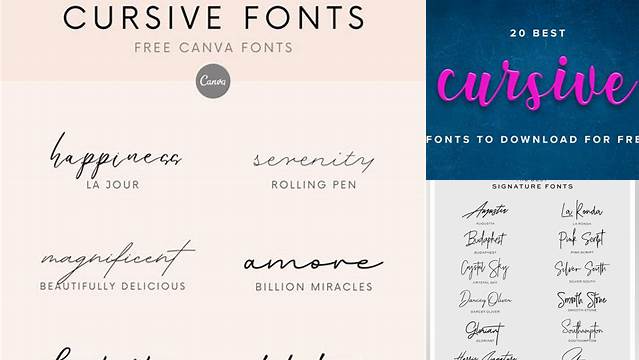
Finding the perfect beautiful cursive fonts for your projects can be a game-changer. Whether you're designing invitations, crafting logos, or just want to add a touch of elegance to your documents, the right font can make all the difference. In this article, we'll explore a variety of stunning cursive fonts available for free download, offering you a wide range of options to suit your creative needs. So, let's dive in and discover some amazing typefaces that will elevate your designs!
Cursive Fonts for Invitations
When it comes to invitations, beautiful cursive fonts can add a touch of sophistication and charm. Think about it, guys – you want your invitations to stand out, right? The right cursive font can convey a sense of elegance, warmth, and personalization that other fonts simply can't match. Here are some factors to consider when choosing a cursive font for invitations. Legibility is key; even the most beautiful font won't work if your guests can't read it. Look for fonts with clear, well-defined characters that are easy on the eyes. The font should also complement the overall style and theme of your event. For a formal wedding, you might choose a classic, flowing script, while a more casual event might call for a playful, modern cursive. Finally, make sure the font is available for commercial use if you're printing a large number of invitations. With a little research, you can find the perfect cursive font to make your invitations truly special.
Free Cursive Fonts for Logos
Logos are the face of a brand, and using beautiful cursive fonts can create a memorable and stylish impression. A cursive font in a logo can convey elegance, creativity, and a personal touch, making it ideal for businesses that want to project a unique and sophisticated image. When selecting a cursive font for a logo, consider the brand's identity and target audience. A flowing, romantic script might be perfect for a wedding planner, while a bolder, more modern cursive could suit a fashion brand. Legibility is crucial; ensure the font is easy to read even at smaller sizes. Pay attention to the kerning (the spacing between letters) to ensure a balanced and professional look. Also, think about how the font will look in different applications, such as on a website, business cards, and promotional materials. By choosing the right cursive font, you can create a logo that captures the essence of your brand and leaves a lasting impression on your audience.
Elegant Cursive Fonts Free
Finding elegant cursive fonts for free can significantly enhance your design projects without breaking the bank. Many designers and hobbyists seek out these fonts to add a touch of sophistication and class to their work. When searching for free elegant cursive fonts, it's essential to consider the license terms. Some fonts are free for personal use only, while others are available for commercial projects as well. Websites like Google Fonts, Font Squirrel, and Creative Fabrica offer a wide variety of high-quality cursive fonts that you can download and use for free. These fonts often feature graceful letterforms, delicate swashes, and refined details that make them perfect for invitations, logos, and branding materials. Be sure to preview the fonts and test them in your designs to ensure they fit your aesthetic and meet your project requirements. With a little effort, you can discover stunning elegant cursive fonts that will elevate your work to the next level.
Best Cursive Fonts for Free Download
Looking for the best cursive fonts without spending a dime? You're in luck! Many talented designers offer their cursive fonts for free, allowing you to add a touch of elegance and personality to your projects. When searching for the best free cursive fonts, consider the variety of styles available. Some fonts are classic and traditional, while others are modern and playful. Look for fonts that suit the specific needs of your project, whether it's a wedding invitation, a logo design, or a social media graphic. Websites like DaFont, Behance, and Fontspace are great resources for finding free cursive fonts. Always check the license terms to ensure you can use the font for your intended purpose. Many free fonts come with restrictions, such as personal use only or attribution requirements. By carefully selecting and using these free resources, you can create stunning designs with beautiful cursive fonts without breaking the bank.
Free Cursive Fonts for Cricut
For those of you who love crafting with Cricut machines, beautiful cursive fonts are a must-have for creating personalized projects. Cursive fonts can add a touch of elegance and uniqueness to your designs, whether you're making custom cards, home decor, or apparel. When choosing a cursive font for Cricut, consider the intricacy of the design and the capabilities of your machine. Some cursive fonts have delicate swashes and thin lines that may be difficult for the Cricut to cut cleanly. Look for fonts with thicker lines and simpler letterforms that are easier to work with. Websites like Creative Fabrica and Font Bundles offer a wide selection of free cursive fonts specifically designed for Cricut. These fonts are optimized for cutting and weeding, ensuring a smooth and professional result. Always test the font on a small piece of material before committing to a larger project to ensure it cuts well. With the right cursive font and a little practice, you can create stunning Cricut projects that showcase your personal style.
Modern Cursive Fonts Free Download
Modern cursive fonts offer a fresh and contemporary twist on traditional script styles, making them a popular choice for designers seeking to add a touch of sophistication and uniqueness to their projects. Unlike classic cursive fonts that often feature elaborate swashes and ornate details, modern cursive fonts tend to be cleaner, more streamlined, and easier to read. They strike a balance between elegance and simplicity, making them versatile for a wide range of applications, including logos, branding, websites, and social media graphics. Many talented designers offer their modern cursive fonts for free, allowing you to experiment with different styles and find the perfect fit for your project. Websites like Behance, Dribbble, and Fontspace are great resources for discovering free modern cursive fonts. When selecting a font, consider the overall aesthetic of your project and the message you want to convey. A modern cursive font can add a touch of personality and style, helping your designs stand out from the crowd.
Handwriting Cursive Fonts Free
Handwriting cursive fonts mimic the look of natural handwriting, adding a personal and authentic touch to your designs. These fonts are perfect for projects that require a warm, inviting, and human feel, such as greeting cards, invitations, handwritten notes, and personal blogs. Unlike more formal cursive fonts, handwriting fonts have a more relaxed and informal appearance, making them ideal for creating a sense of intimacy and connection with your audience. Many designers and typographers offer their handwriting cursive fonts for free, allowing you to experiment with different styles and find the perfect fit for your project. Websites like DaFont, Creative Market, and MyFonts offer a wide selection of free handwriting fonts, ranging from elegant and refined to playful and quirky. When selecting a font, consider the overall tone and style of your project. A handwriting font can add a touch of personality and charm, helping your designs resonate with your audience on a deeper level.
Calligraphy Cursive Fonts Free
Calligraphy cursive fonts emulate the art of calligraphy, adding a touch of elegance and sophistication to your designs. These fonts feature flowing strokes, graceful curves, and intricate details that are reminiscent of traditional hand-lettering. Calligraphy fonts are perfect for projects that require a formal and refined aesthetic, such as wedding invitations, certificates, diplomas, and high-end branding materials. Unlike more casual cursive fonts, calligraphy fonts have a more polished and sophisticated appearance, making them ideal for creating a sense of prestige and exclusivity. Many talented calligraphers and typographers offer their calligraphy cursive fonts for free, allowing you to add a touch of artistry to your designs. Websites like Font Squirrel, Google Fonts, and Adobe Fonts offer a wide selection of free calligraphy fonts, ranging from classic and traditional to modern and contemporary. When selecting a font, consider the overall style and tone of your project. A calligraphy font can add a touch of timeless beauty and elegance, helping your designs make a lasting impression.